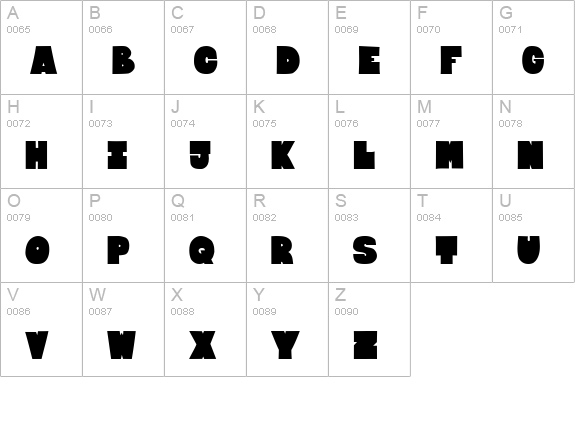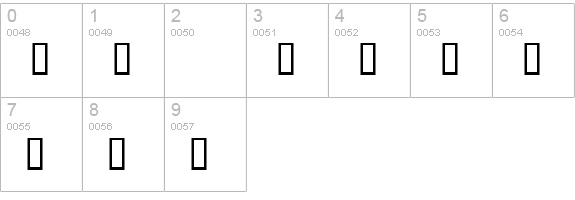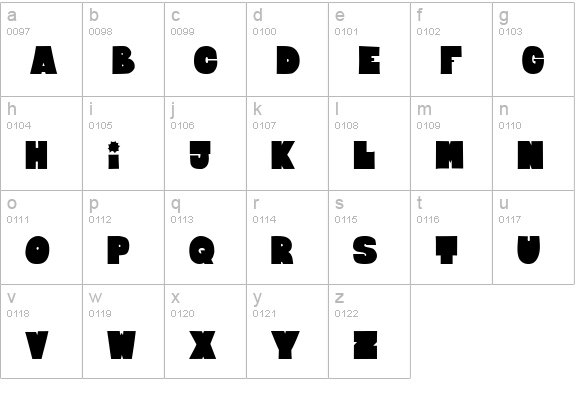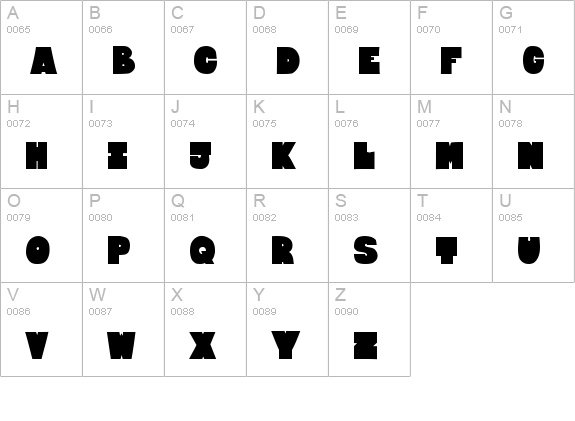
Bloxxxx ExtraBold is an extra-heavy, attention-grabbing variant in the Bloxxxx typeface family \xE2\x80\x94 well suited to high-impact headlines, posters, and bold branding.
Introducing Bloxxxx ExtraBold, a striking and modern display font that commands attention with its bold presence. With thick, powerful letterforms and sharp angles, this typeface exudes confidence and strength, making it ideal for headlines, posters, and branding projects that demand a bold statement. Bloxxxx ExtraBold is the perfect choice for designers looking to make a lasting impact with their typography. Whether used in print or digital designs, this font ensures that your message will be delivered with maximum impact and style. Best of all, Bloxxxx ExtraBold is available for free download at FontsMarket.com. This means that you can easily access this powerful font and incorporate it into your projects without any cost. Don't miss out on the opportunity to elevate your designs with Bloxxxx ExtraBold – download it today and make a bold statement!